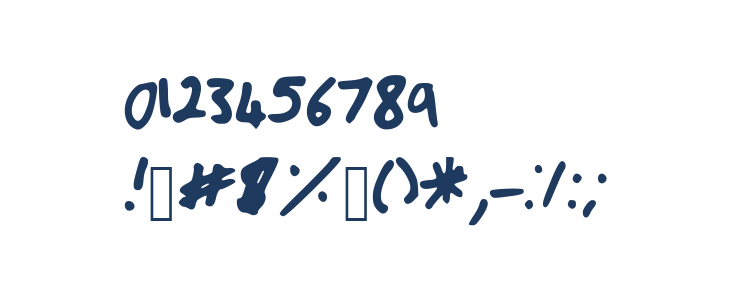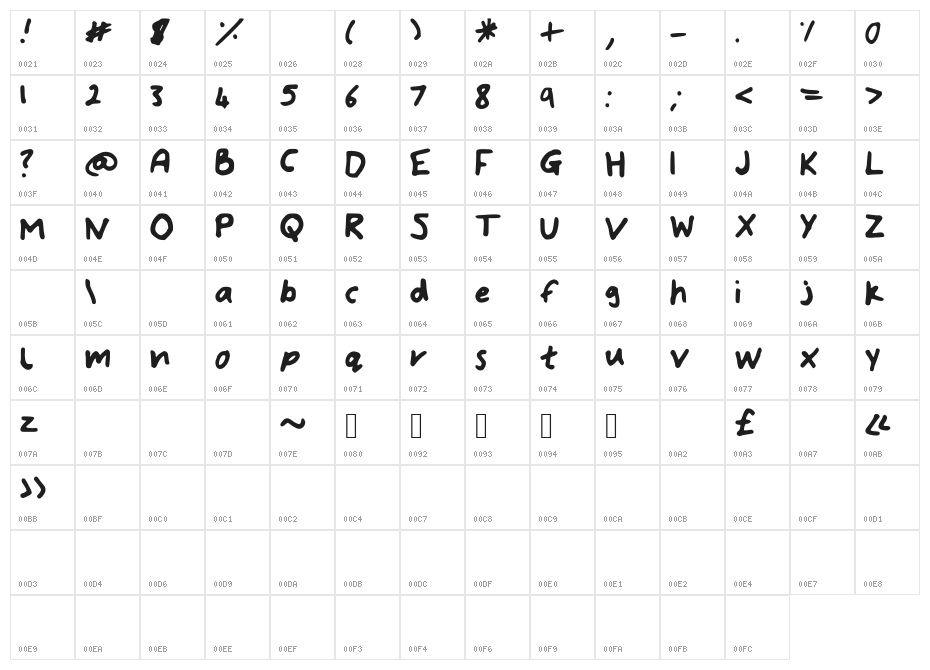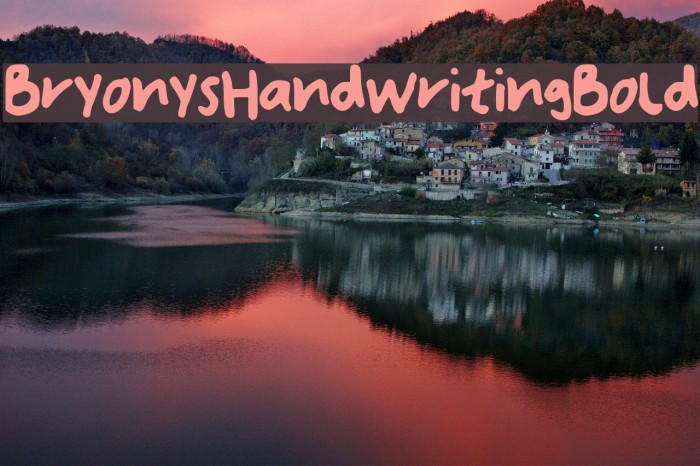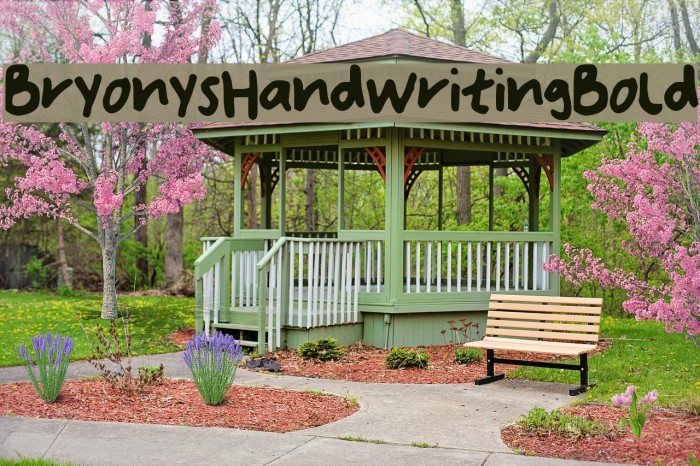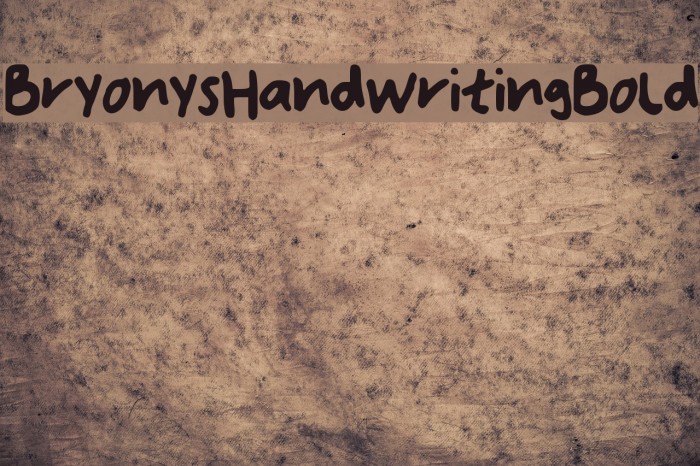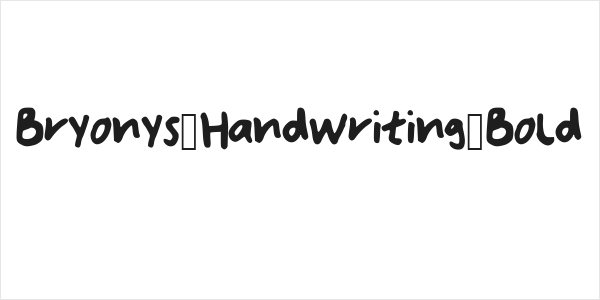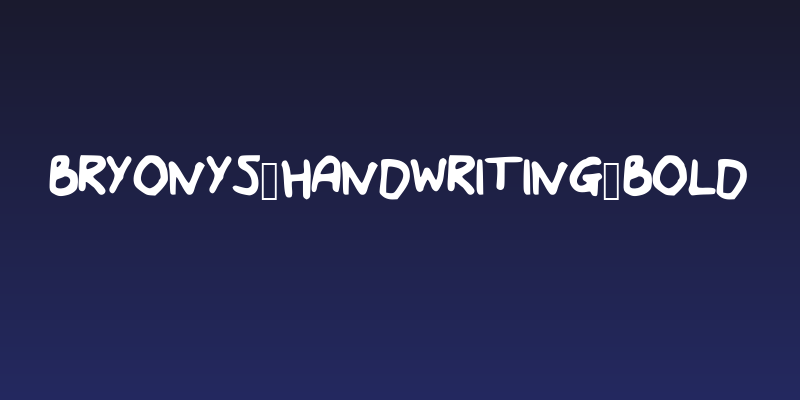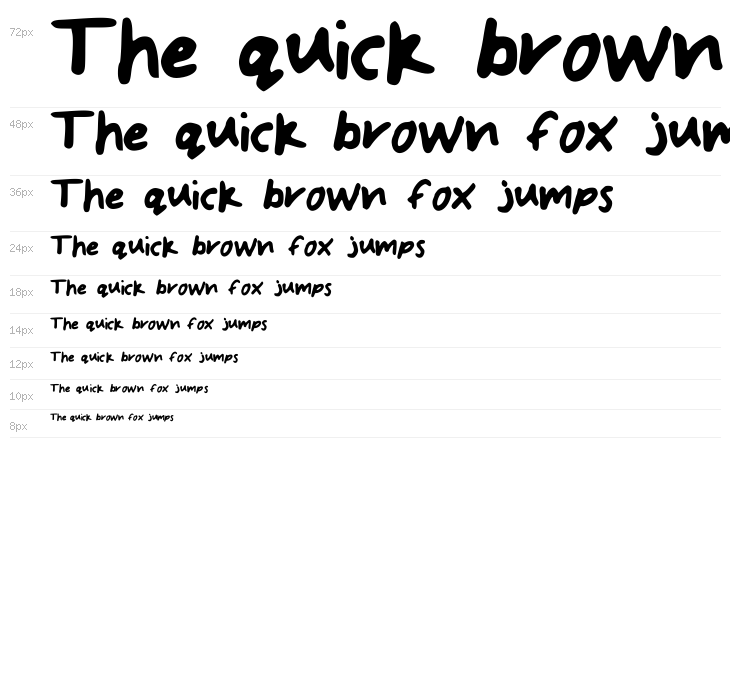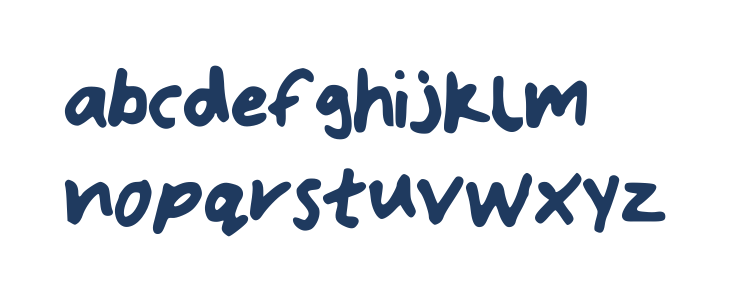
Bryonys_Handwriting_Bold Font
Bryonys_Handwriting_Bold Description
This font exudes a playful and casual vibe, reminiscent of handwritten notes with a bold and confident stroke. Each character is crafted with a slightly irregular shape, adding a personal touch that mimics natural handwriting. The letters are well-spaced, ensuring readability while maintaining a lively and informal appearance. The bold weight of the strokes gives it a strong presence, making it suitable for eye-catching designs. The font includes a full set of uppercase and lowercase letters, numbers, and a variety of special characters, providing versatility for different design needs.
| Use Case | Headlines, Informal Text, Branding |
| Proposed Projects | Ideal for greeting cards, children's books, casual branding, and playful social media graphics. |